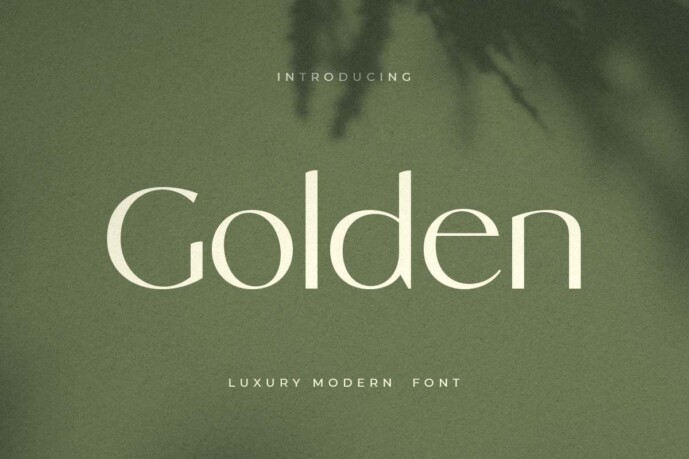
Golden Sans Font
Designer: HamzStudio
Golden Sans Font is a modern, luxurious and elegant sans serif font with a pointed shape that gives your design a chic and elegant look.
A new San Serif font that we created especially for the headline, title and other remarkable typographic needs, with an additional ligature that will add your variations. It is so perfect to add your style and an overview of the title. And especially for the Golden font, we designed it for a unique style and a touch of modernity, so take advantage of it to create any project that will highlight your main idea.